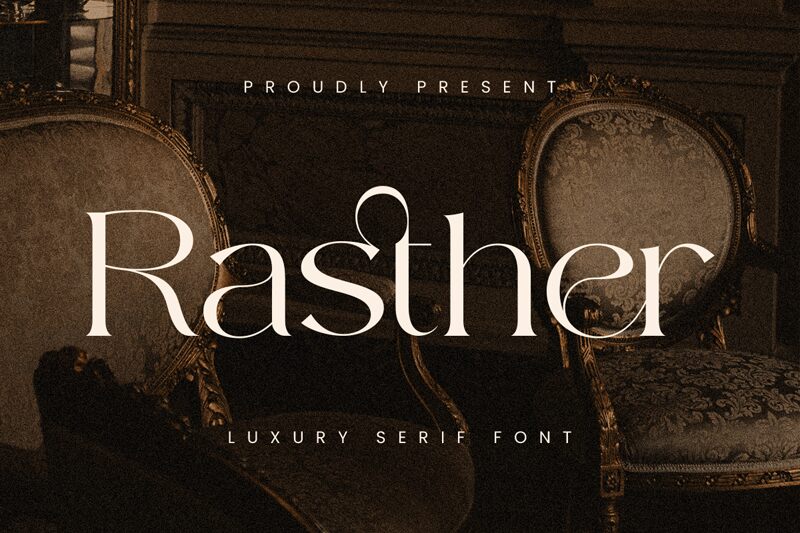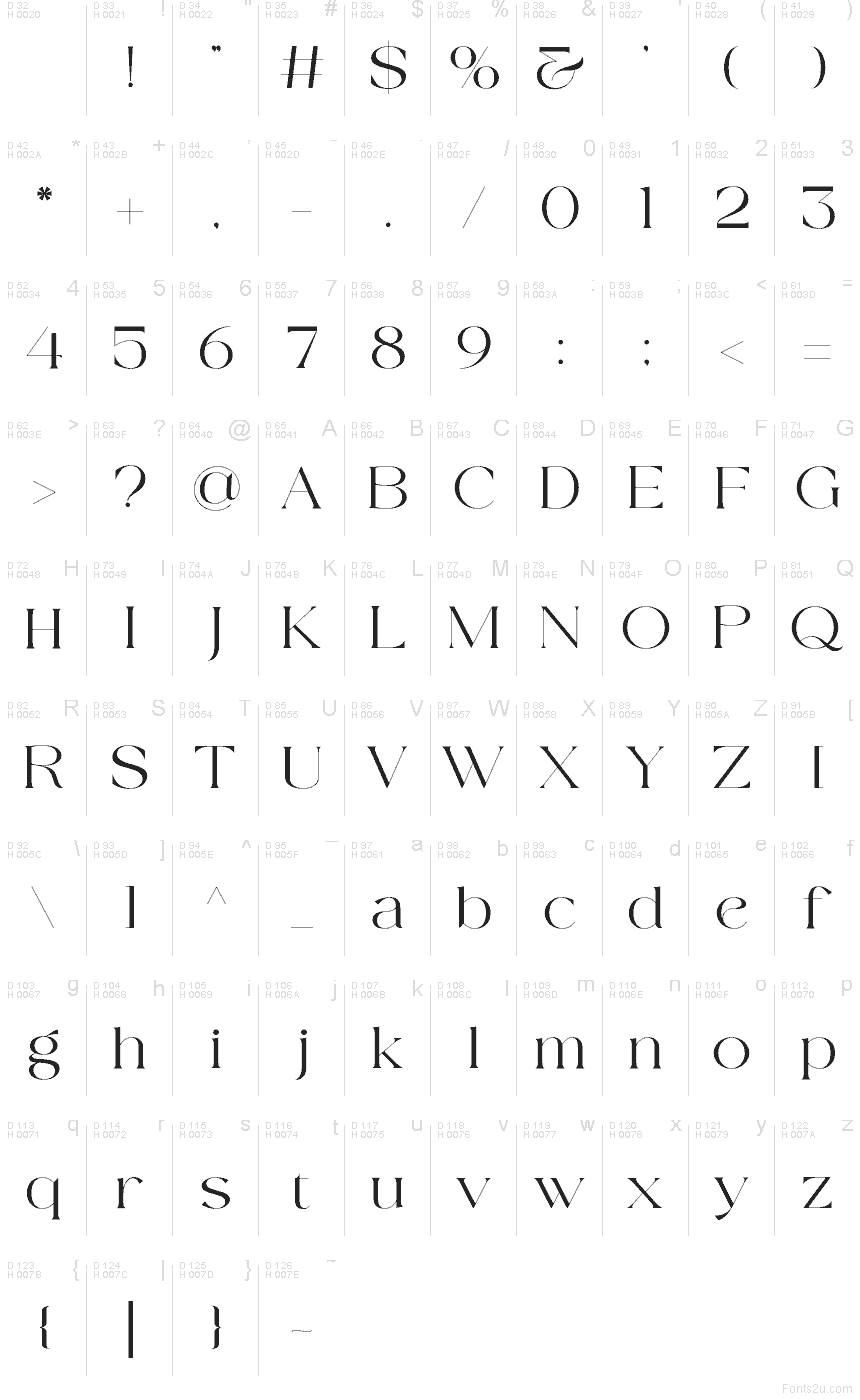
Rasther
Rasther font by ToniStudio is a free serif typeface with a sleek, knife-edge elegance that feels straight off a luxury magazine cover. The strokes glide from whisper-thin to weightier curves, giving each word a polished, editorial sheen. Its tall proportions and carefully spaced letters create a cool, confident rhythm that makes headlines look expensive without trying too hard.
Using Rasther, your work instantly takes on a refined, fashion-forward mood—great for logos, magazine covers, beauty packaging, wedding stationery, posters, and bold social media graphics. This free font shines at larger sizes, where its delicate details stay crisp and inky; pair it with a clean geometric sans serif for body text to keep layouts airy and modern.